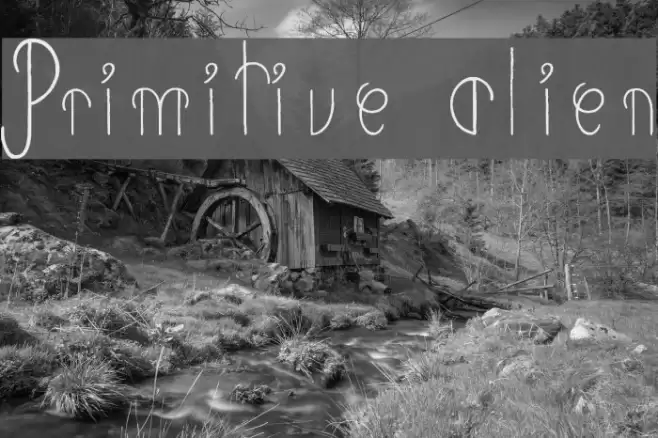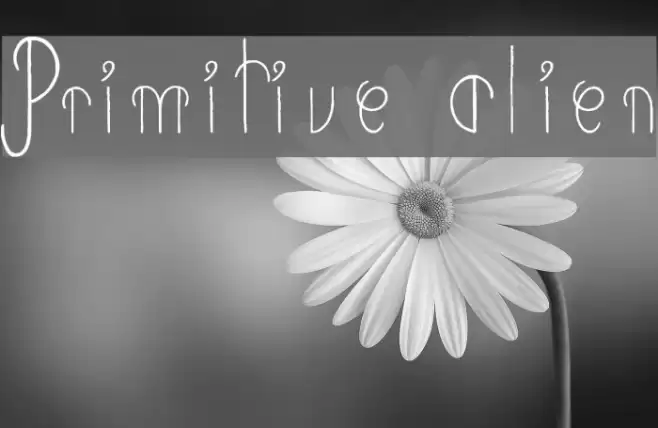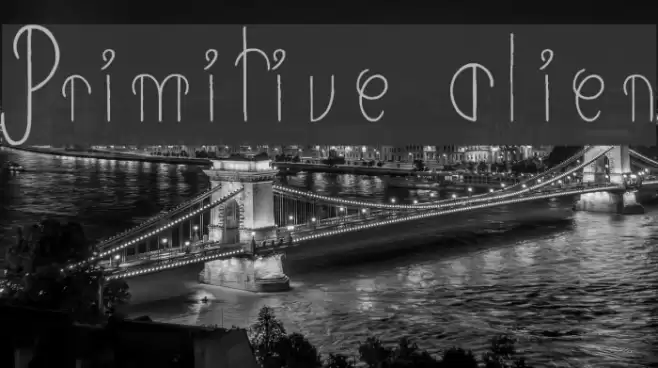
Primitive Alien Font
Primitive Alien Description
This font exhibits a unique and whimsical style, characterized by its elongated and curved letterforms that give it an alien-like appearance. The strokes are thin and delicate, with a playful yet sophisticated touch. The uppercase and lowercase letters maintain a consistent height, creating a harmonious flow. The numerals are bold and slightly more traditional, providing a nice contrast to the letters. Special characters are creatively designed, adding to the font's overall quirky and artistic vibe. This font is perfect for projects that require a distinctive and eye-catching typeface.
A whimsical and alien-like font with elongated, curved letterforms and bold numerals from Uncategorized fonts.
- Proposed Projects: Ideal for creative projects such as posters, album covers, or branding that seeks a unique and artistic flair.